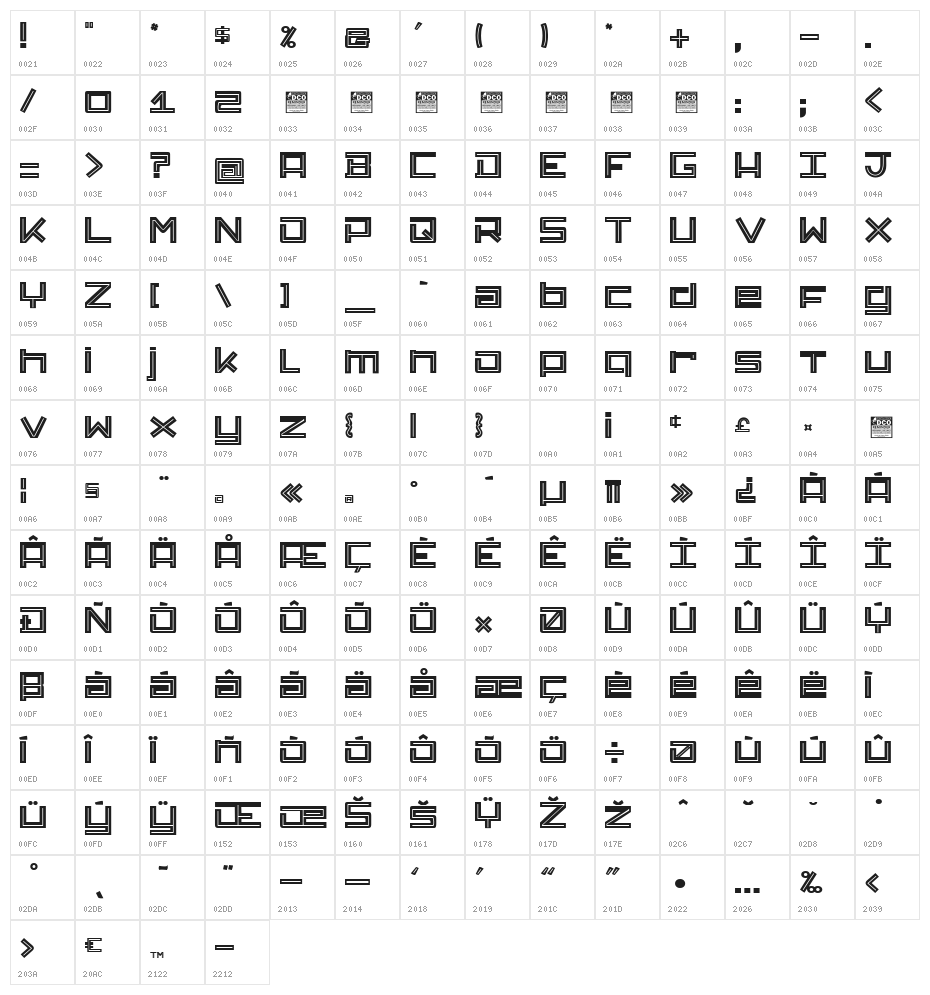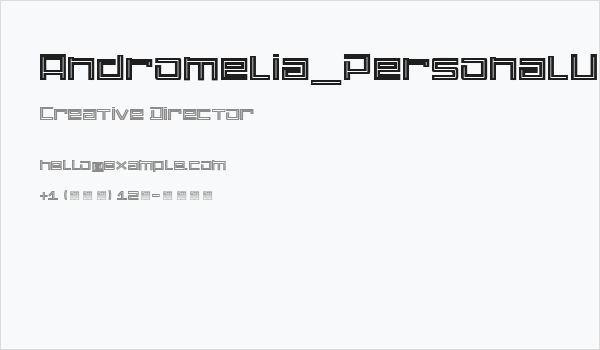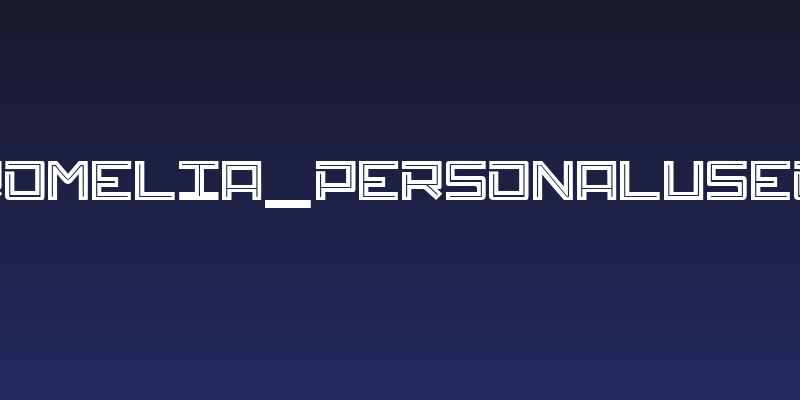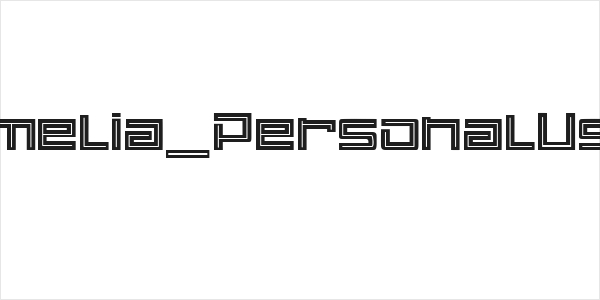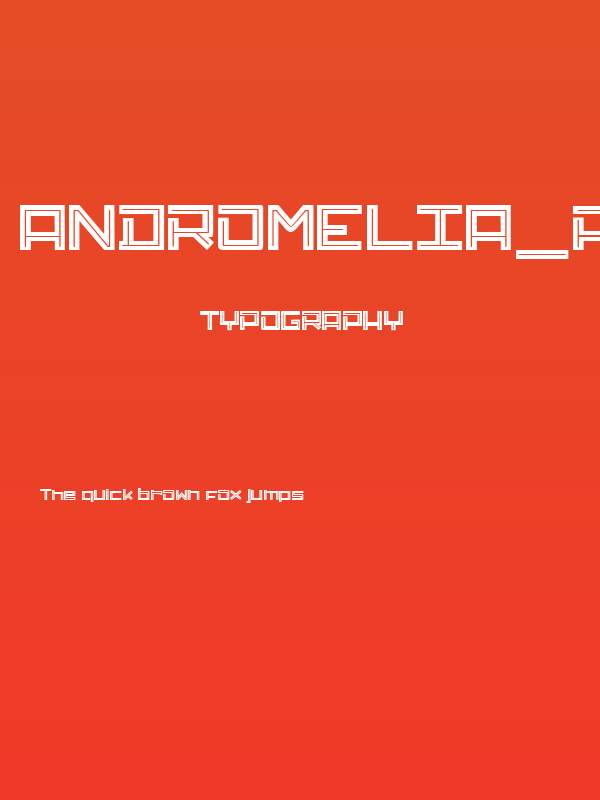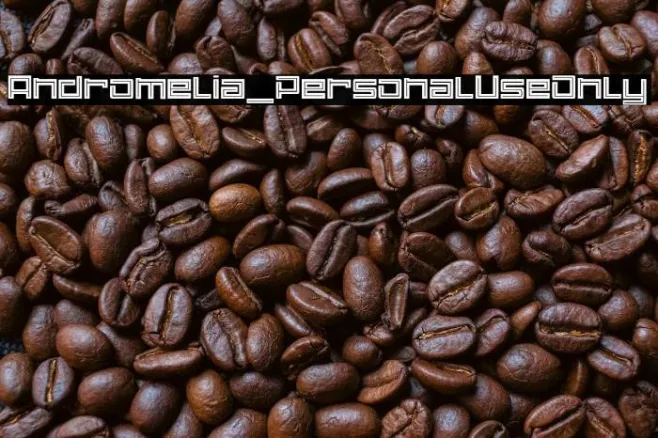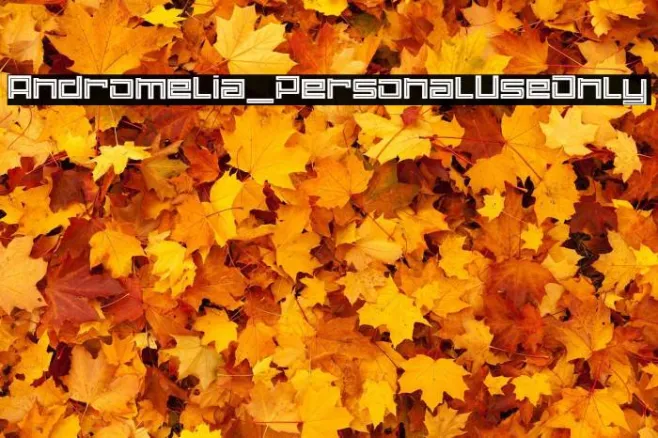
Andromelia_PersonalUseOnly Font
Andromelia_PersonalUseOnly Description
This font features a bold, geometric design with a futuristic flair. The characters are constructed with thick, uniform lines that create a sense of structure and modernity. Each letter is outlined, giving it a three-dimensional appearance that stands out. The uppercase and lowercase letters maintain a consistent style, with sharp angles and clean lines. The numbers and special characters follow the same design principles, ensuring a cohesive look across all text. This font's unique style makes it ideal for projects that require a modern and eye-catching typeface.